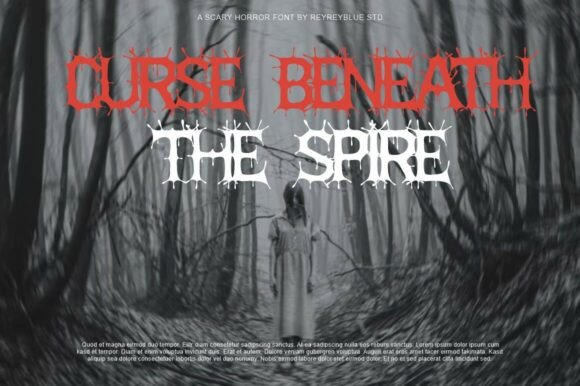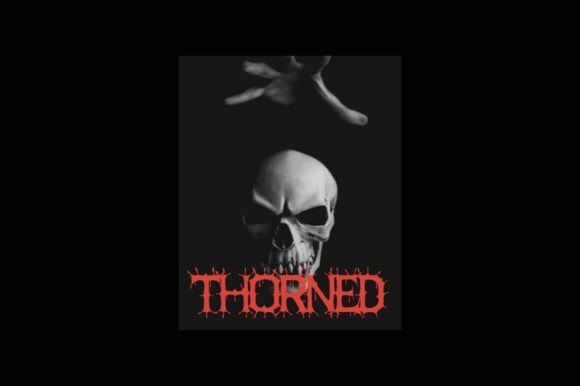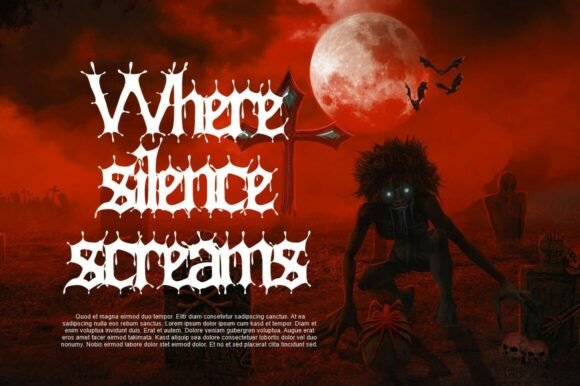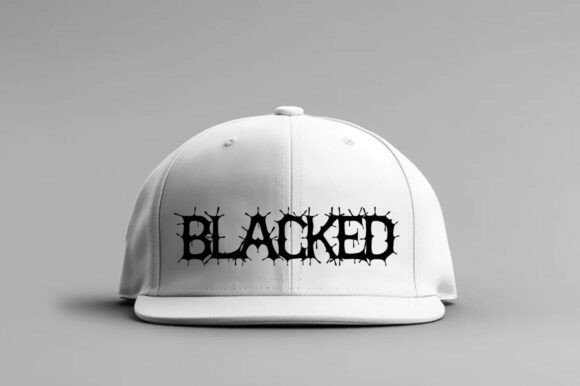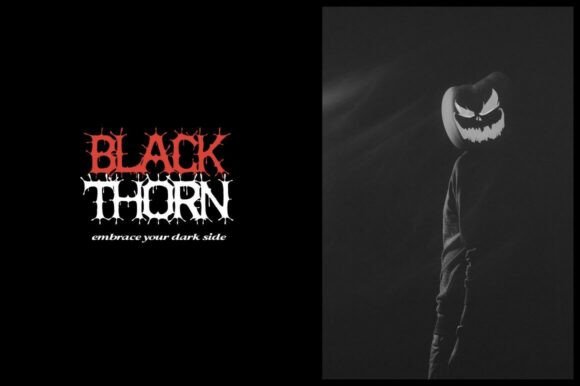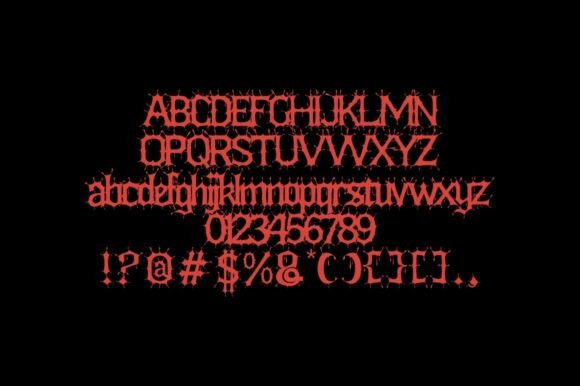
Unleash the Dark Side: Introducing Blackspike Font
Are you a designer or craft looking for a typography that exudes power, mystery, and an occult atmosphere? Look no further than Blackspike, a dark gothic blackletter font that’s perfect for fear-driven visuals. With its sharp thorned edges, aggressive strokes, and medieval-inspired letterforms, Blackspike is the ideal choice for creating haunting and unforgettable designs.
The Inspiration Behind Blackspike
Blackspike draws inspiration from ancient manuscripts and brutal black metal aesthetics, bringing a sense of raw intensity to your designs. The font’s dramatic silhouette is reminiscent of medieval times, evoking feelings of mystery and foreboding. Whether you’re creating horror titles, metal band logos, or dark-themed designs, Blackspike’s haunting presence is sure to command attention.
Crafted for Intensity and Drama
Each character in Blackspike is carefully crafted to feel intense, raw, and cinematic. The font’s sharp edges and aggressive strokes give it a bold and daring feel, making it perfect for designers who want their typography to stand out. Whether you’re creating horror films, gothic branding, game titles, tattoos, or edgy merchandise, Blackspike brings a terrifying elegance that elevates your design instantly.
Perfect for Dark and Edgy Designs
Blackspike is the ultimate choice for designers who want to create fear-driven visuals. Its versatility makes it suitable for a wide range of applications, including:
- Horror titles and movie posters
- Metal band logos and album covers
- Fantasy artwork and game titles
- Streetwear branding and edgy merchandise
- Gothic branding and dark-themed designs
- Tattoos and body art
Why Choose Blackspike?
So why choose Blackspike over other fonts? Here are just a few reasons:
- Unique and bold design: Blackspike’s sharp edges and aggressive strokes make it stand out from other fonts.
- Versatile: Suitable for a wide range of applications, from horror titles to streetwear branding.
- Haunting presence: Blackspike’s dramatic silhouette is sure to command attention and leave a lasting impression.
- Cinematic feel: Each character is crafted to feel intense, raw, and cinematic, making it perfect for designers who want to create fear-driven visuals.
Tips for Using Blackspike
To get the most out of Blackspike, here are a few tips:
- Use it sparingly: Blackspike’s bold design can be overwhelming if overused. Use it sparingly to create maximum impact.
- Experiment with colors: Blackspike looks great in bold, dark colors, but don’t be afraid to experiment with other colors to create a unique look.
- Pair it with other fonts: Blackspike can be paired with other fonts to create a unique and interesting contrast.
Blackspike is a powerful and haunting font that’s perfect for designers who want to create fear-driven visuals. With its sharp edges, aggressive strokes, and medieval-inspired letterforms, Blackspike embodies power, mystery, and an occult atmosphere. Whether you’re creating horror titles, metal band logos, or dark-themed designs, Blackspike is the ultimate choice for designers who want to unleash the dark side.